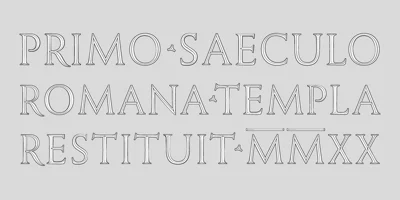
Monkton Incised Font
Monkton Incised Font is perfect for medieval monastery museum branding, monastic heritage preservation communications, historical manuscript reproduction projects, religious studies educational materials, contemplative retreat center signage, sacred text publication designs, monastery restoration documentation, spiritual pilgrimage tour promotions, ecclesiastical art exhibition catalogs, and distinguished monastic lifestyle marketing campaigns.
What makes Monkton Incised Font so exciting is its extraordinary ability to capture the timeless wisdom and sacred craftsmanship of monastic scriptoriums through deeply carved letterforms that seem chiseled by devoted scribes who understood that creating beautiful typography was itself a form of prayer and spiritual discipline blessed with the kind of contemplative precision that emerges from years of patient practice in service to higher purposes. This font embodies the essence of monastic dedication and sacred scholarship, featuring reverently incised characters that appear carved with the same meticulous care that medieval monks invested in illuminating precious manuscripts and preserving sacred knowledge through centuries of political upheaval and cultural change. The spiritually crafted letter shapes create an atmosphere of contemplative reverence and monastic authority, making every word feel like it carries the weight of sacred tradition and the promise of connecting modern readers with the profound wisdom preserved through generations of monastic scholarship and spiritual devotion.
The Monkton Incised Font family includes Light, Regular, Medium, Bold, and Sacred variations, along with monastic symbols and medieval decorative elements. Each style maintains the font's distinctive contemplative character while offering versatility for different spiritual applications, from gentle meditation text to commanding ceremonial headlines that honor the enduring contributions of monastic communities to education, culture, and spiritual life.
This sacred typeface brings authentic monastic heritage aesthetics to contemporary design projects. The Monkton Incised Font offers designers an invaluable resource for creating memorable brand identities that communicate spiritual depth, monastic wisdom, and sacred authenticity. Whether you're developing religious institution branding, designing monastery heritage materials, or creating contemplative spiritual communications, this font delivers unmatched monastic credibility and sacred appeal.
The reverently crafted letterforms in Monkton Incised Font feature deep incisions and contemplative proportions that mirror the patient dedication of monastic scribes and the systematic approach to preserving sacred knowledge that enabled monasteries to serve as centers of learning and cultural preservation throughout the medieval period. Each character has been designed to maintain perfect readability while expressing the spiritual discipline and contemplative wisdom that define authentic monastic tradition. The font's distinctive personality makes it ideal for applications requiring genuine monastic authority and sacred scholarly credibility.
Religious heritage and educational professionals appreciate how Monkton Incised Font effortlessly communicates spiritual authenticity, monastic wisdom, and sacred scholarship while serving communities and institutions dedicated to preserving the contemplative traditions and educational contributions that monasteries have made to human civilization. The comprehensive character set includes monastic symbols, sacred decorations, contemplative elements, and extensive international language support, ensuring global compatibility while preserving its distinctive Monkton identity. This makes it an invaluable resource for monasteries, religious studies programs, heritage preservation societies, and any organization seeking typography that embodies the fundamental monastic values of contemplative prayer, scholarly dedication, and the kind of spiritual discipline that transforms the daily work of copying manuscripts and preserving knowledge into acts of devotion that serve not only present communities but also future generations who will benefit from the patient preservation of wisdom, beauty, and sacred truth through the dedicated labor of monks who understood that serving God requires both spiritual devotion and intellectual rigor in the systematic preservation of knowledge that enables human culture to flourish while maintaining connection to the divine source of all wisdom and beauty that inspires contemplative souls to dedicate their lives to the sacred work of preserving and transmitting truth through the patient art of beautiful writing.